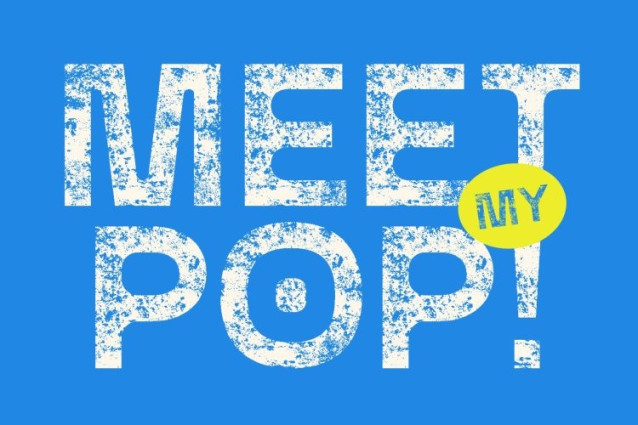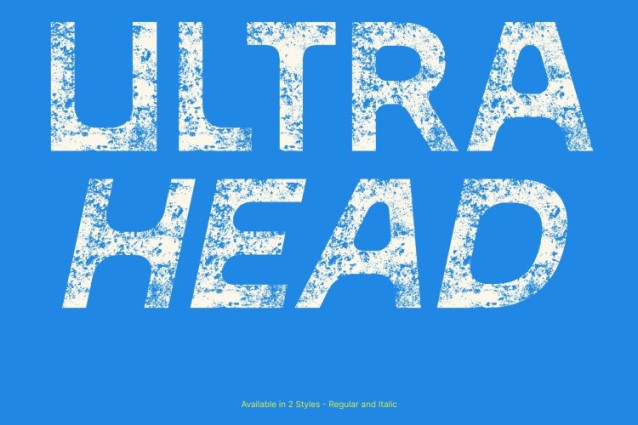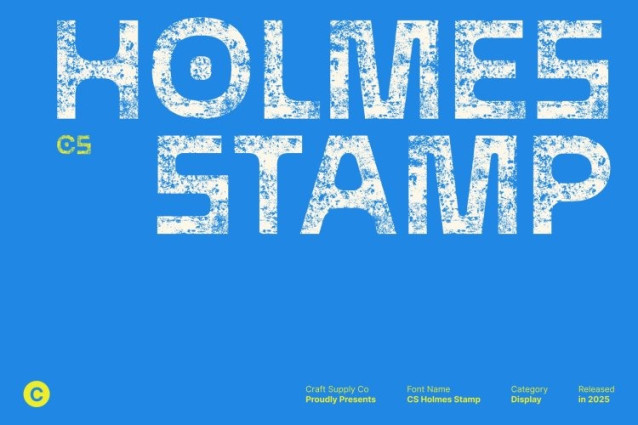
CS Holmes Stamp Font
CS Holmes Stamp Font This font embodies the bold spirit of brutalist design through its sharp angles, rigid forms, and unconventional geometric structure. Each character feels intentionally raw and experimental, giving the font a striking, architectural presence. Its cool, modern edge makes it perfect for designers who want to push boundaries and explore bold visual language.
Cool, Experimental Style for Modern Layouts
Built for display use, stands out with its unapologetic shapes and strong visual rhythm. The font communicates confidence, innovation, and artistic edge ideal for editorial layouts, poster headlines, and graphic design projects that demand attention. Its unique geometry ensures every title becomes a statement.
Expressive Vintage Texture Through Stamp Effect
The stamp texture adds a tactile, handcrafted layer that contrasts beautifully with its brutalist structure. This rough, vintage-like finish makes the font feel alive and expressive, enhancing its artistic personality. The blend of precision and imperfection creates a raw, textured aesthetic that elevates any creative project.
Perfect for Editorial, Posters, and Bold Design Concepts
Whether you’re crafting experimental magazine spreads, striking posters, or contemporary branding, delivers powerful visual impact. It balances brutalist sharpness with artistic texture, creating a font that is modern, expressive, and unmistakably original ideal for designers who want typography that truly stands out.